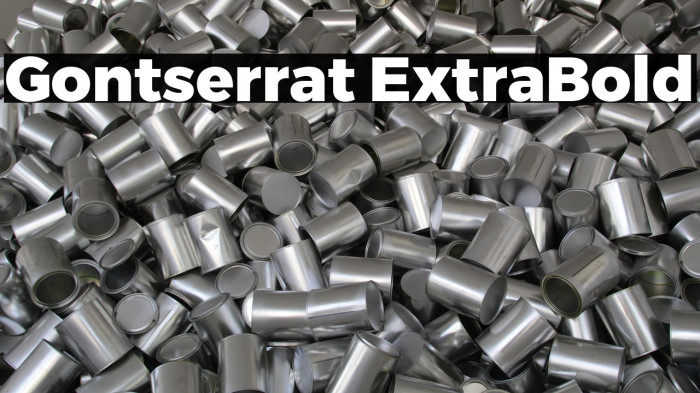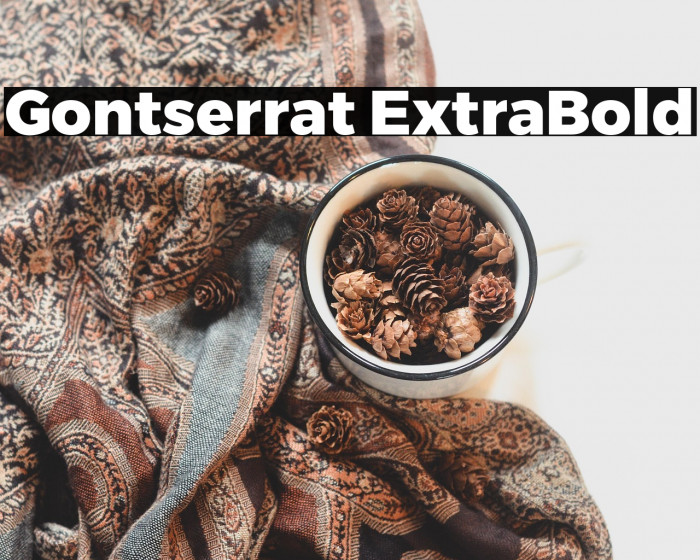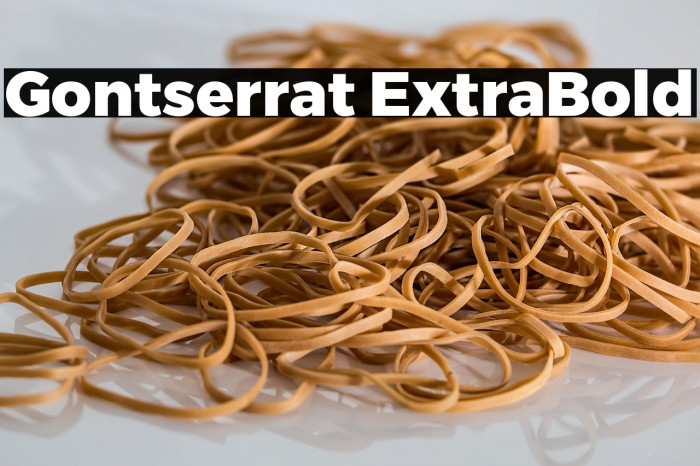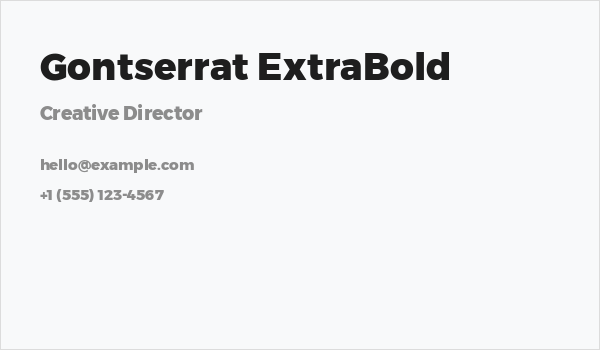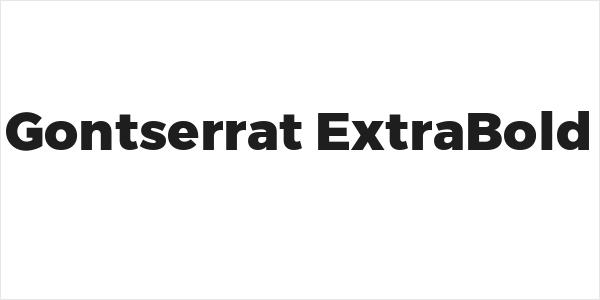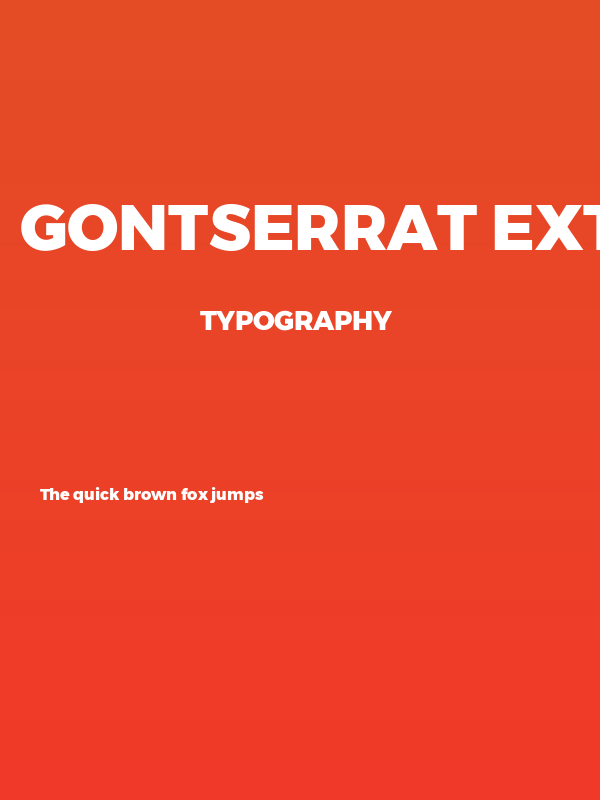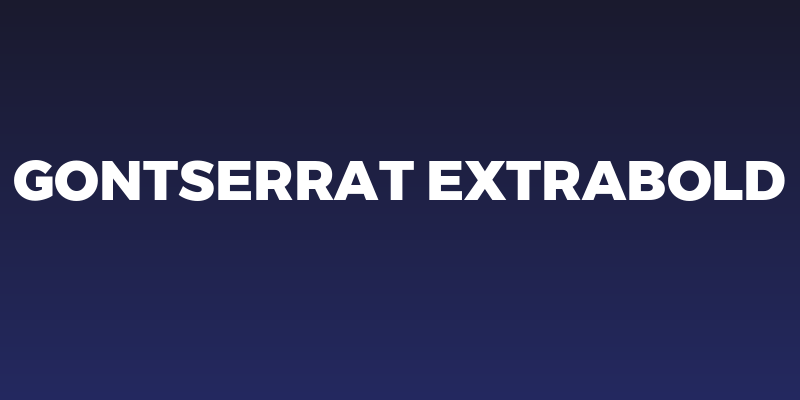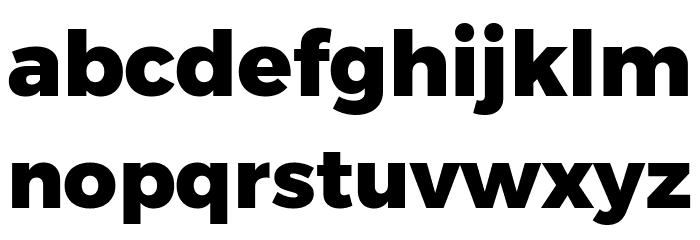
Gontserrat ExtraBold Font
Gontserrat ExtraBold Description
This typeface exhibits a bold and modern aesthetic with clean, geometric lines and a strong presence. The uppercase and lowercase letters are well-proportioned, offering a harmonious balance between curves and straight edges. The numerals are clear and easily distinguishable, making them suitable for various applications. Special characters are designed with the same attention to detail, ensuring consistency across the entire character set. The overall design is versatile, making it suitable for both digital and print media.